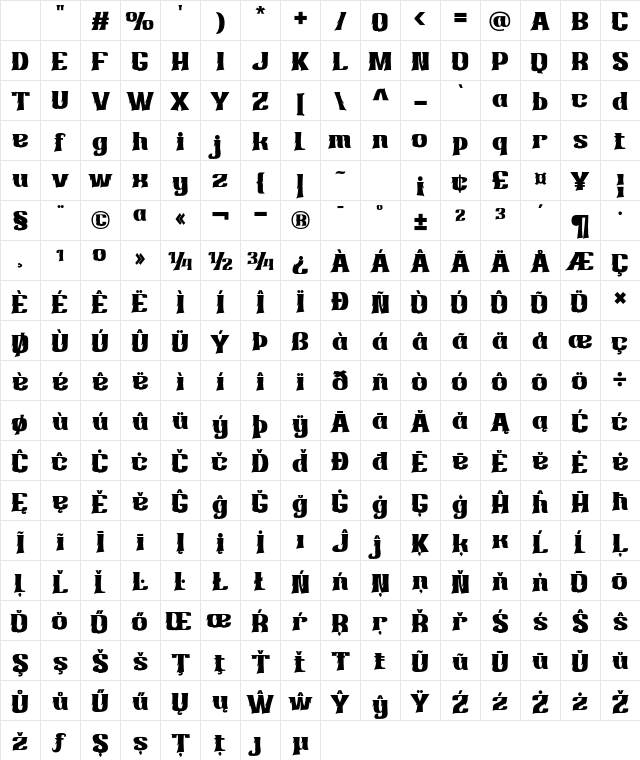
Complete Birhuk Lord Trial Regular glyph index. Displaying only characters natively supported by Birhuk Lord Trial Regular font.
Birhuk Lord Trial is a composed and adaptable typeface that performs quietly and consistently across a wide range of design contexts.